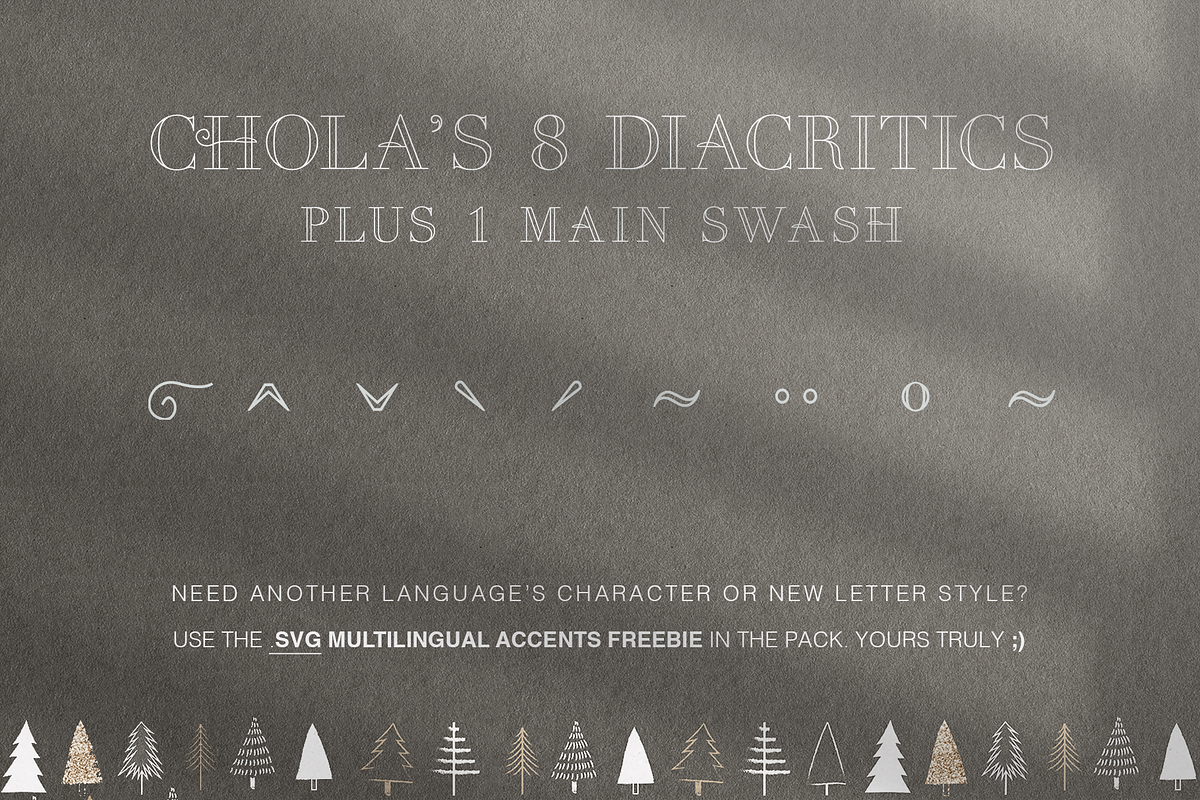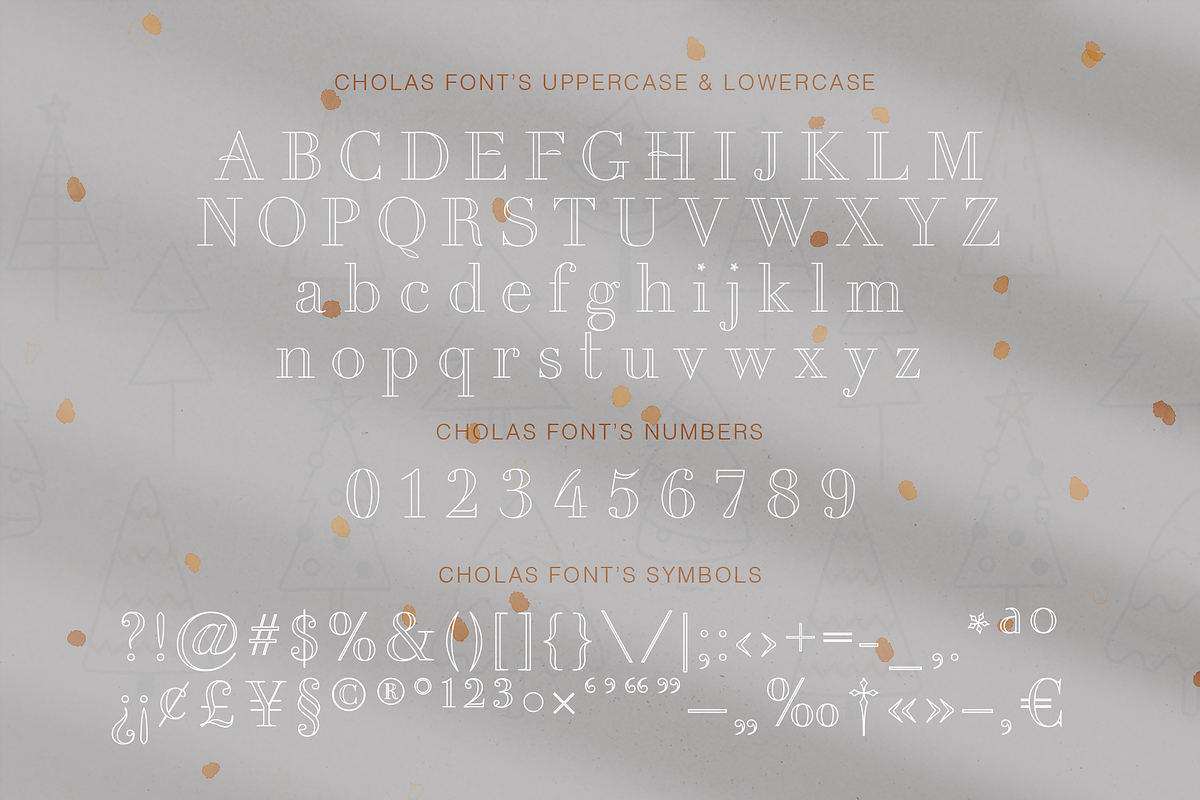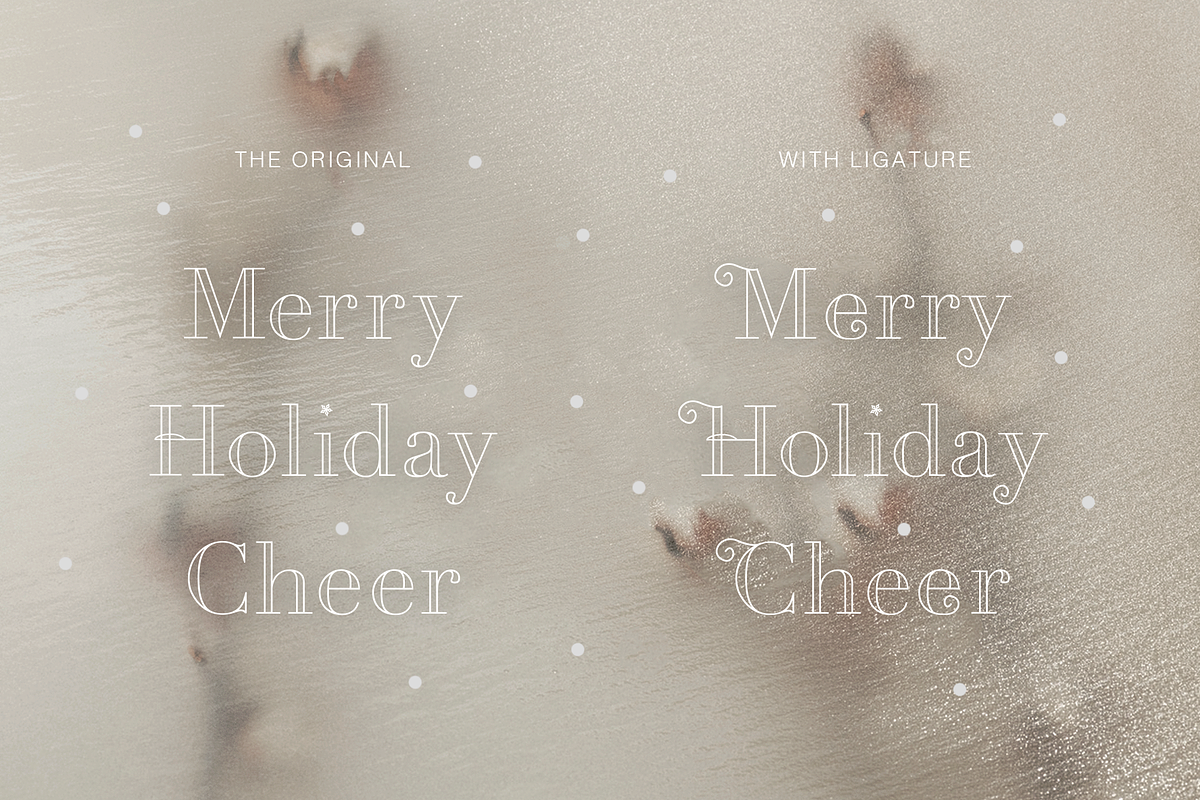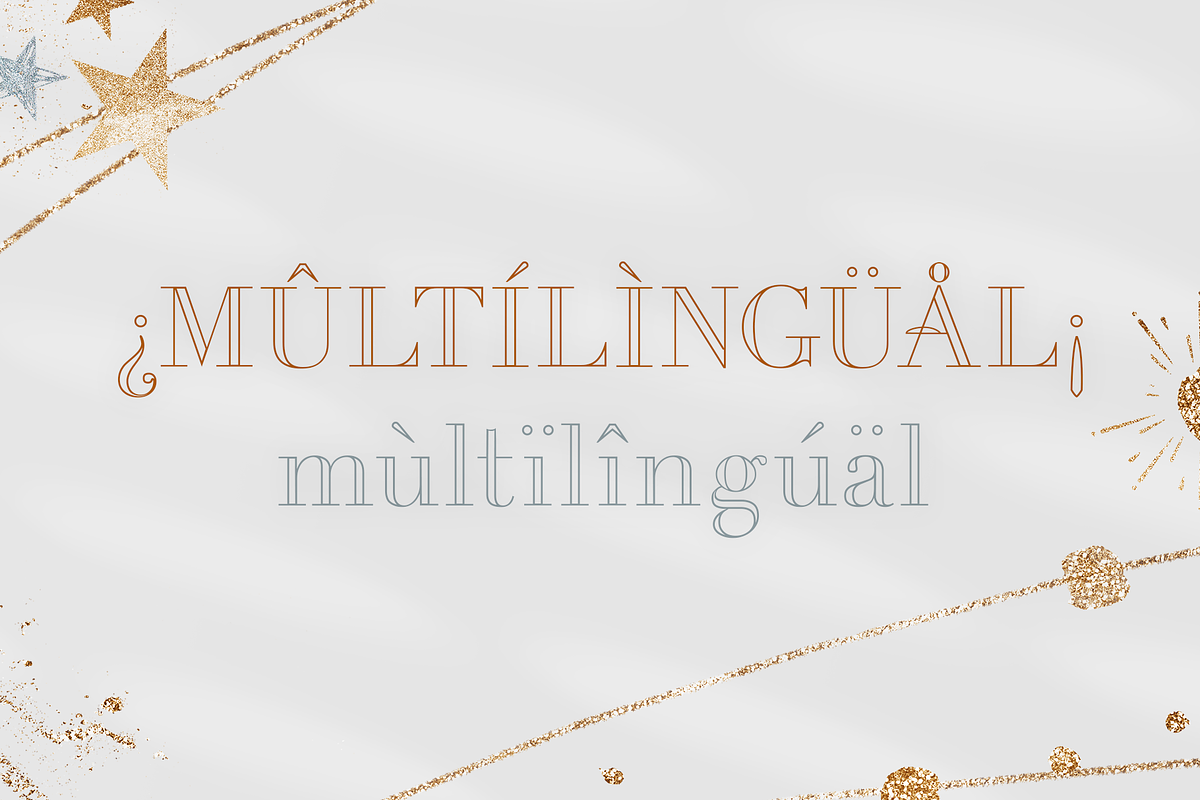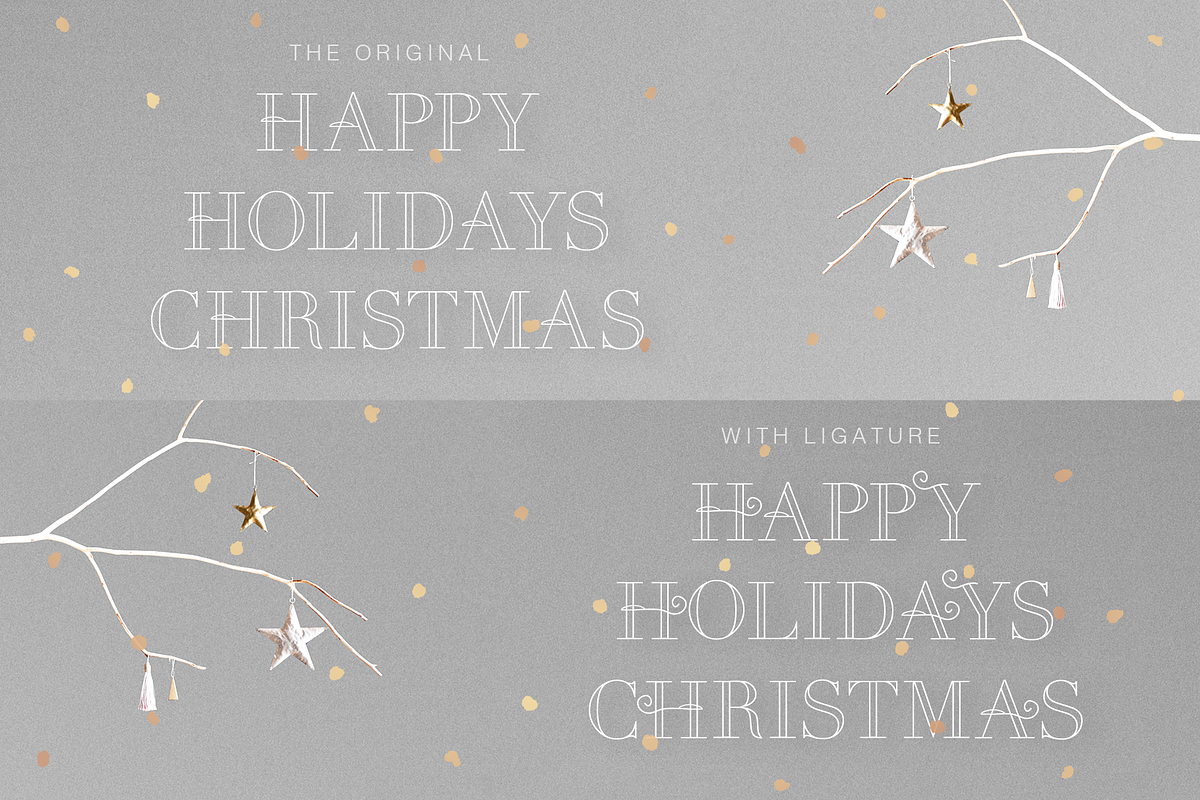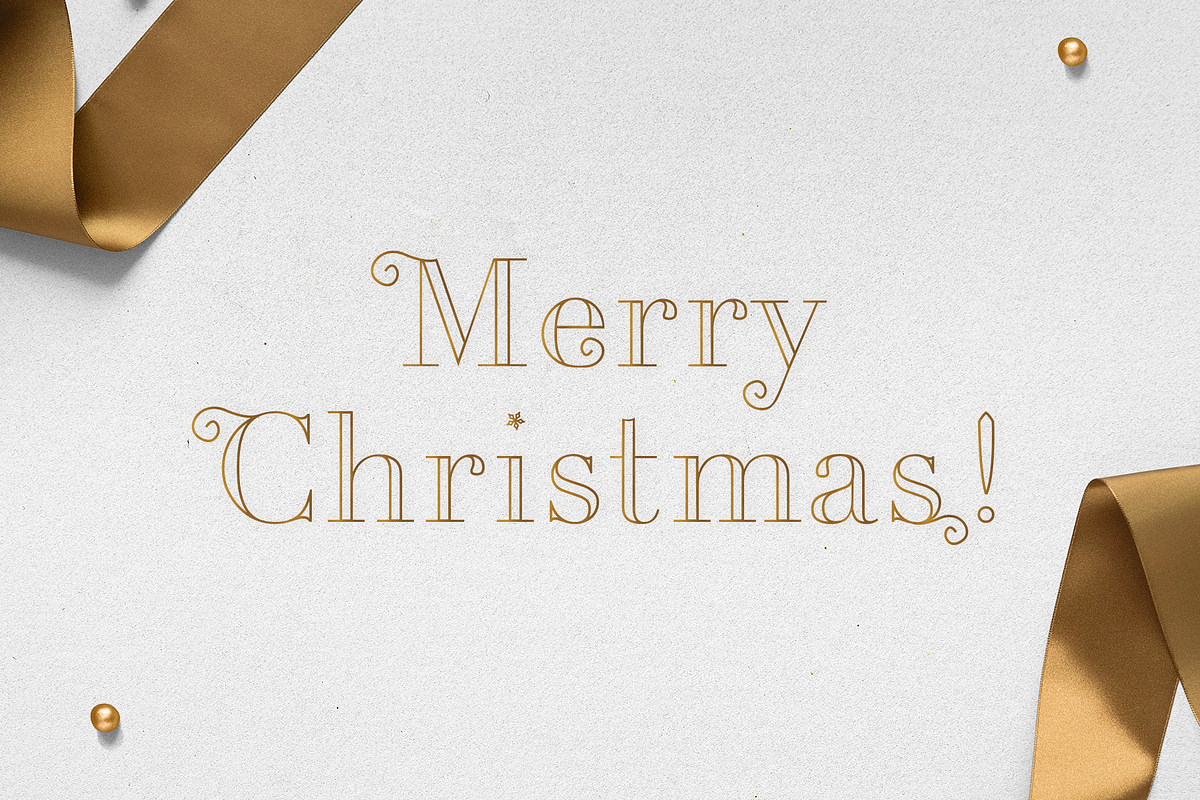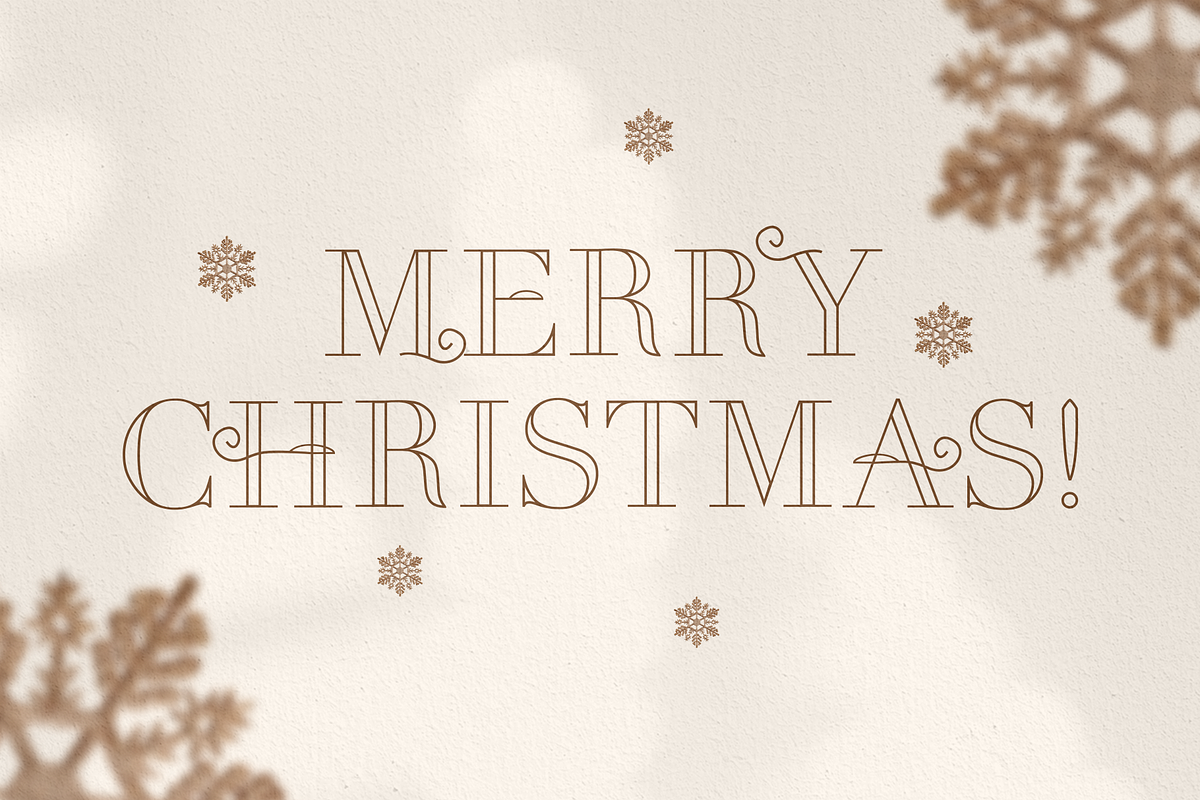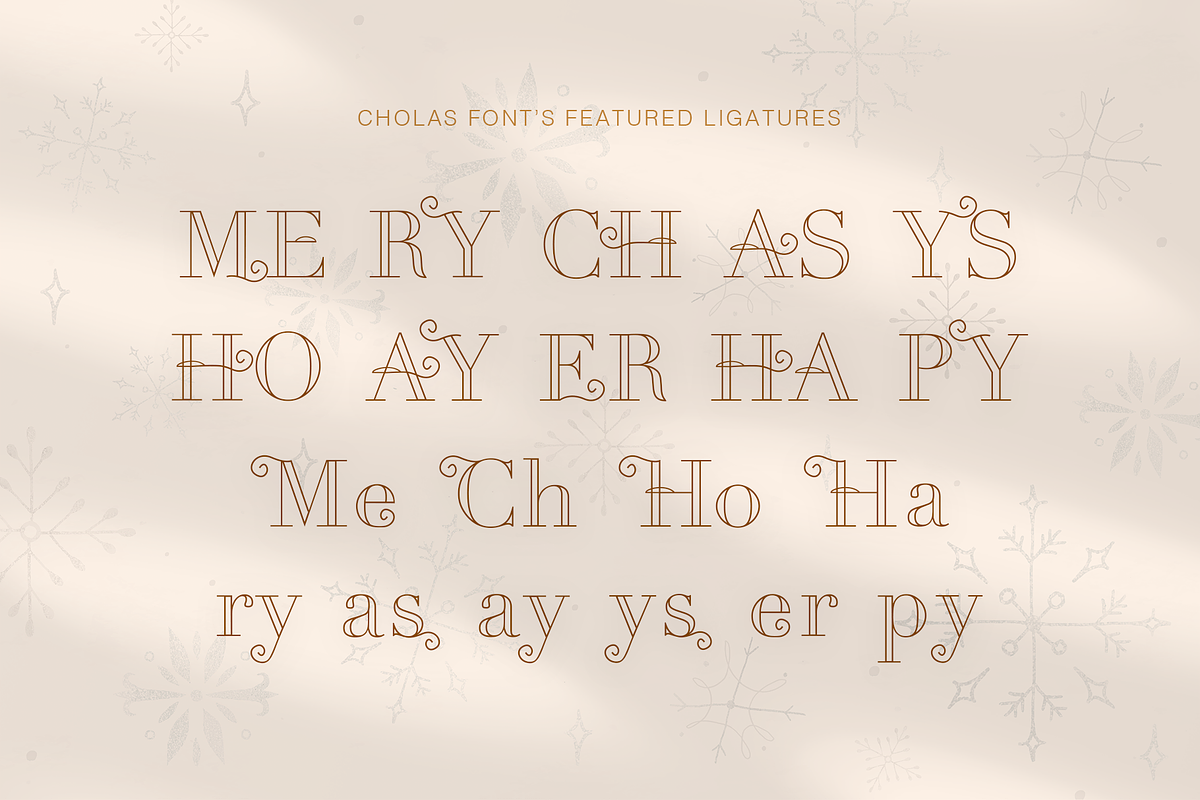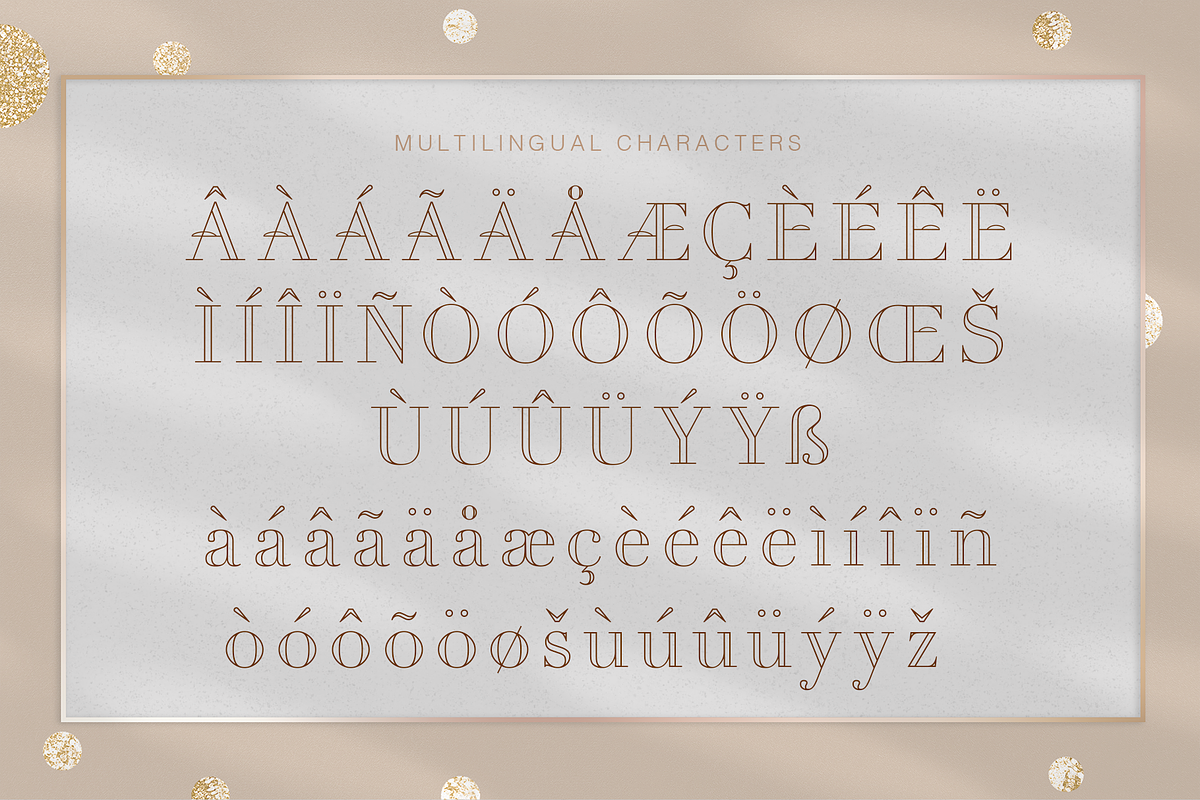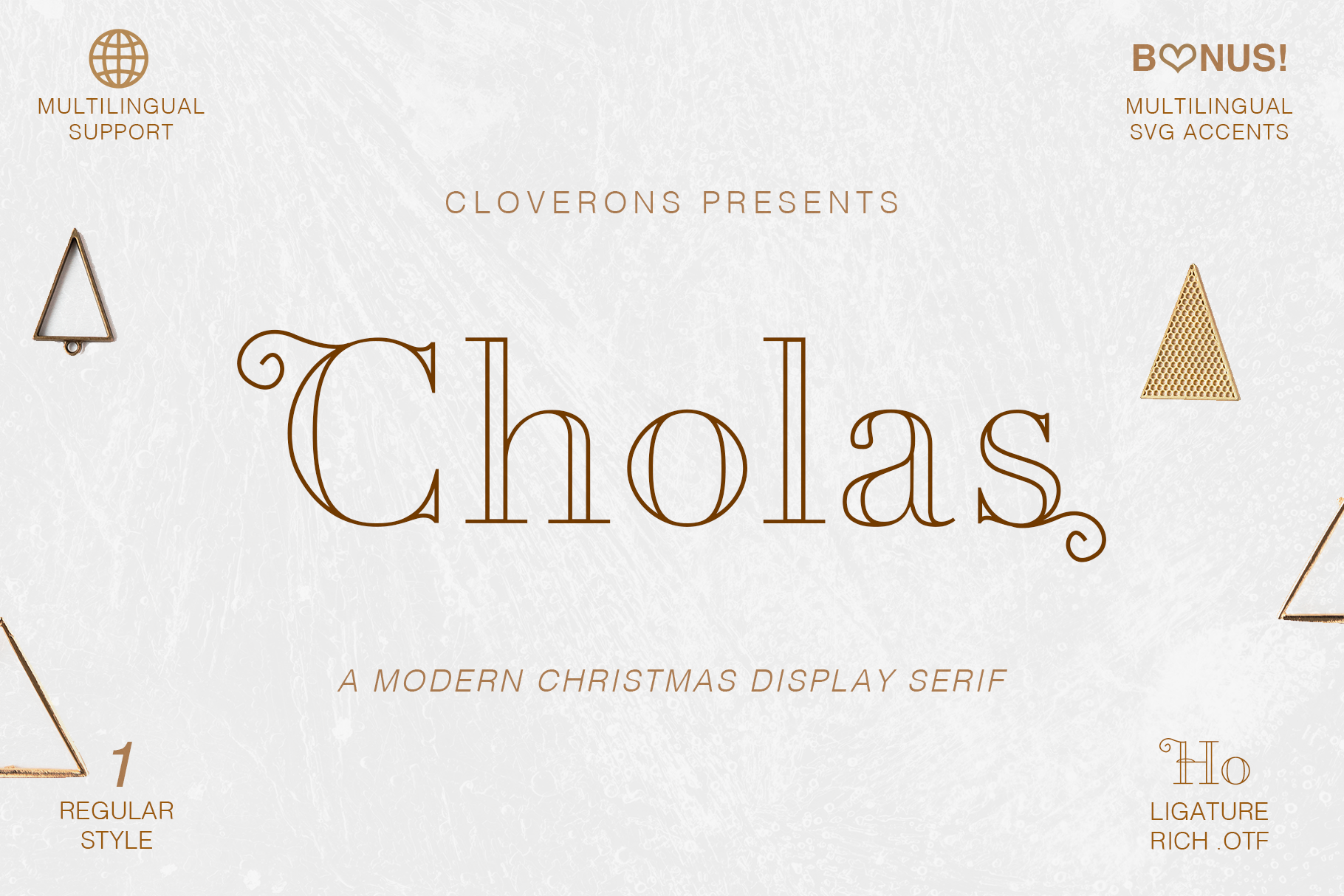
Cholas Modern Christmas Font Display
Meet Cholas, a new Christmas Holiday Display Serif Typeface of the 21st century. It has outlined letter accents and comes with minimalist yet stylish designed ligature combos. It's a very versatile font that works as standalone or paired with other fonts. It is a great design choice this Xmas season for branding, logo, labels, packaging, magazine headers & so much more.
- Weight - Regular
- Lowercase & Uppercase
- Unique Holiday Ligatures
- Numerals &Punctuation
- Multilingual Characters
- Language Support: Western Europe
Bonus: 8 Multilingual Accents in .svg file - also known as diacritics so I can hopefully cover more languages plus the main swash I created and used for ligatures so you can add your own styles too and make it a bit more personalized! :)